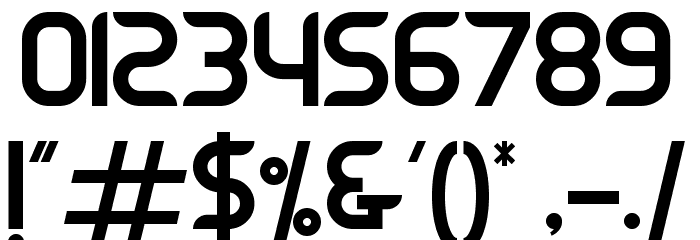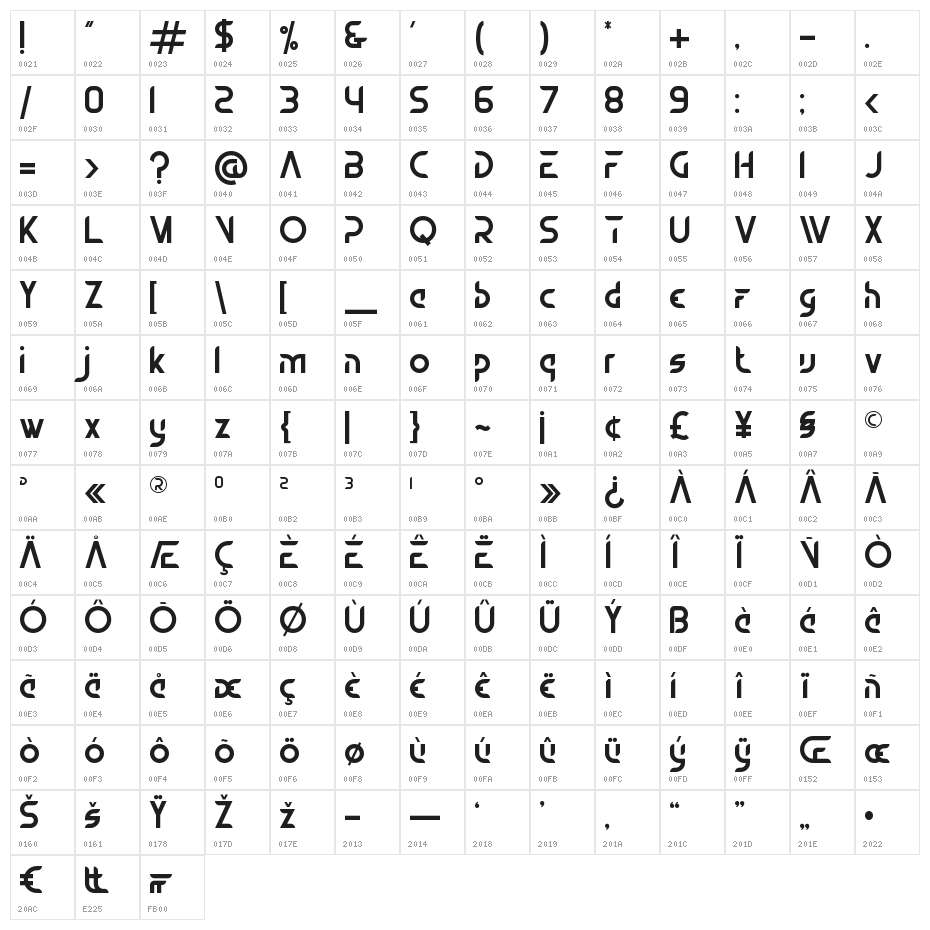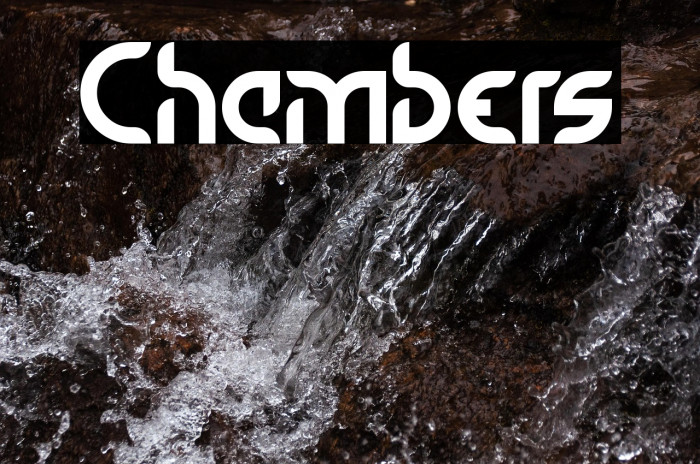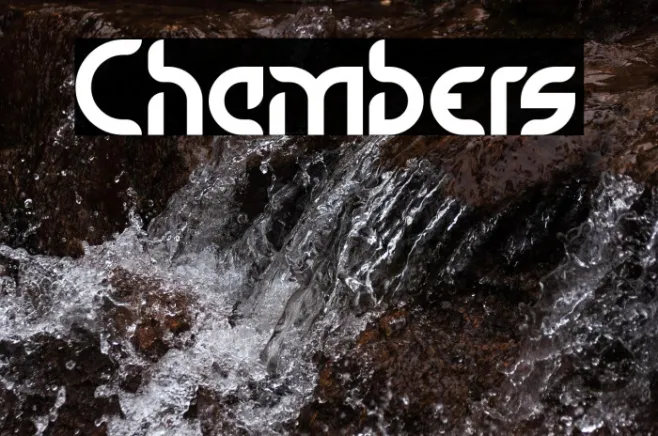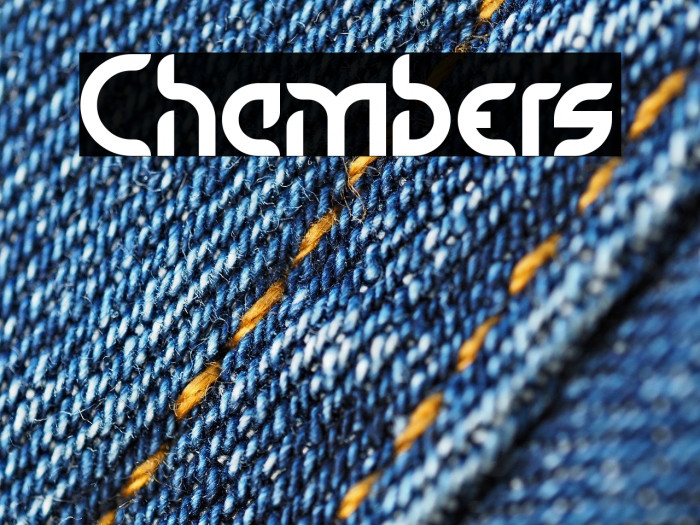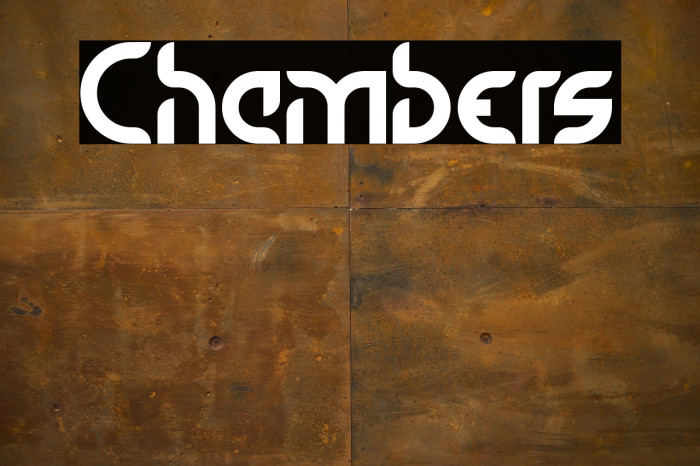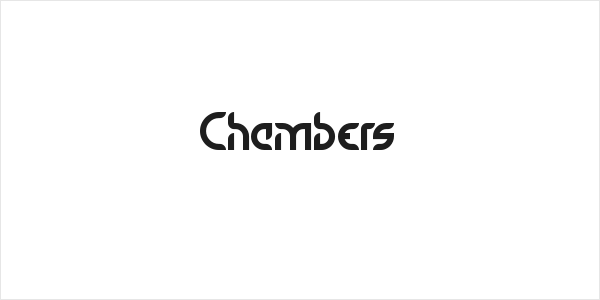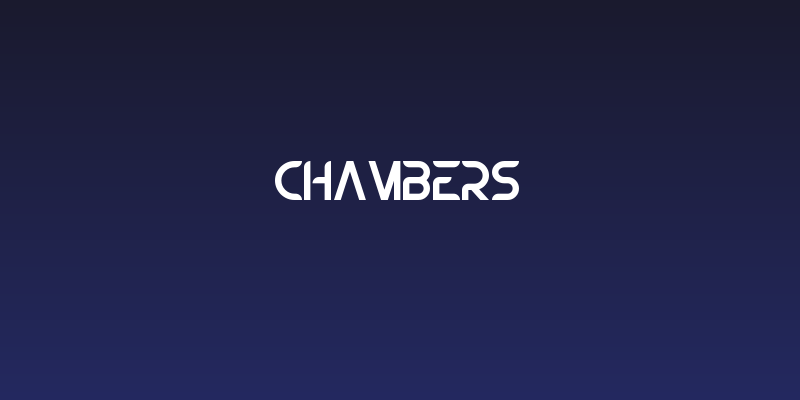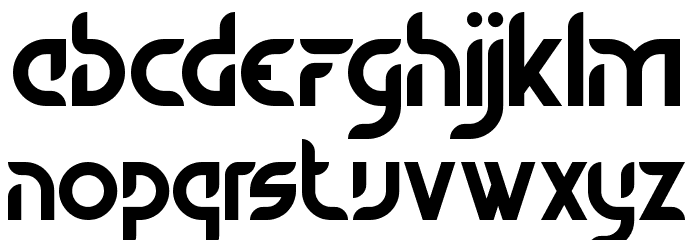
Chambers Font
Chambers Description
This font features a bold and modern design with a futuristic flair. The characters are constructed with a geometric approach, incorporating sharp angles and clean lines. The uppercase letters have a unique style with some characters featuring cut-out sections, adding to the contemporary feel. The lowercase letters maintain a consistent design, ensuring readability while retaining the font's distinctive aesthetic. Numbers and special characters are designed to match the overall style, making this font versatile for various applications. The boldness of the strokes and the uniformity in character width contribute to its striking appearance.
| Proposed Projects | Ideal for branding, logos, headlines, and digital media projects that require a modern and bold aesthetic. |